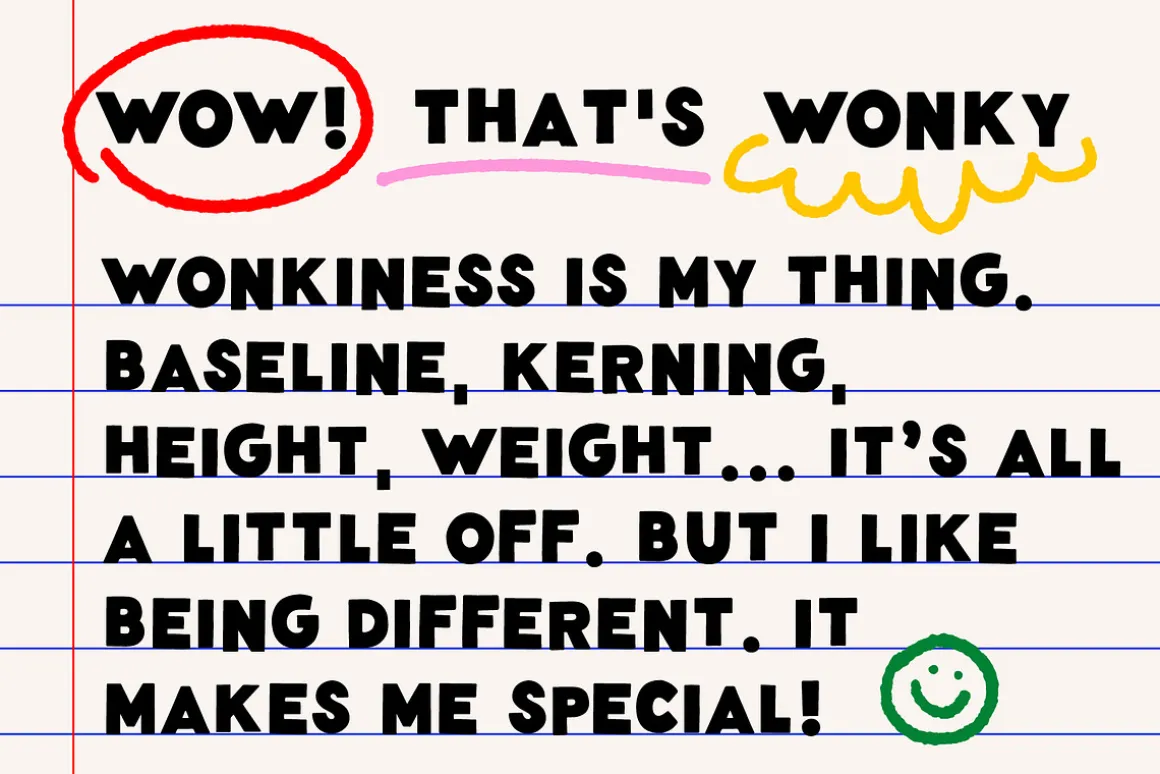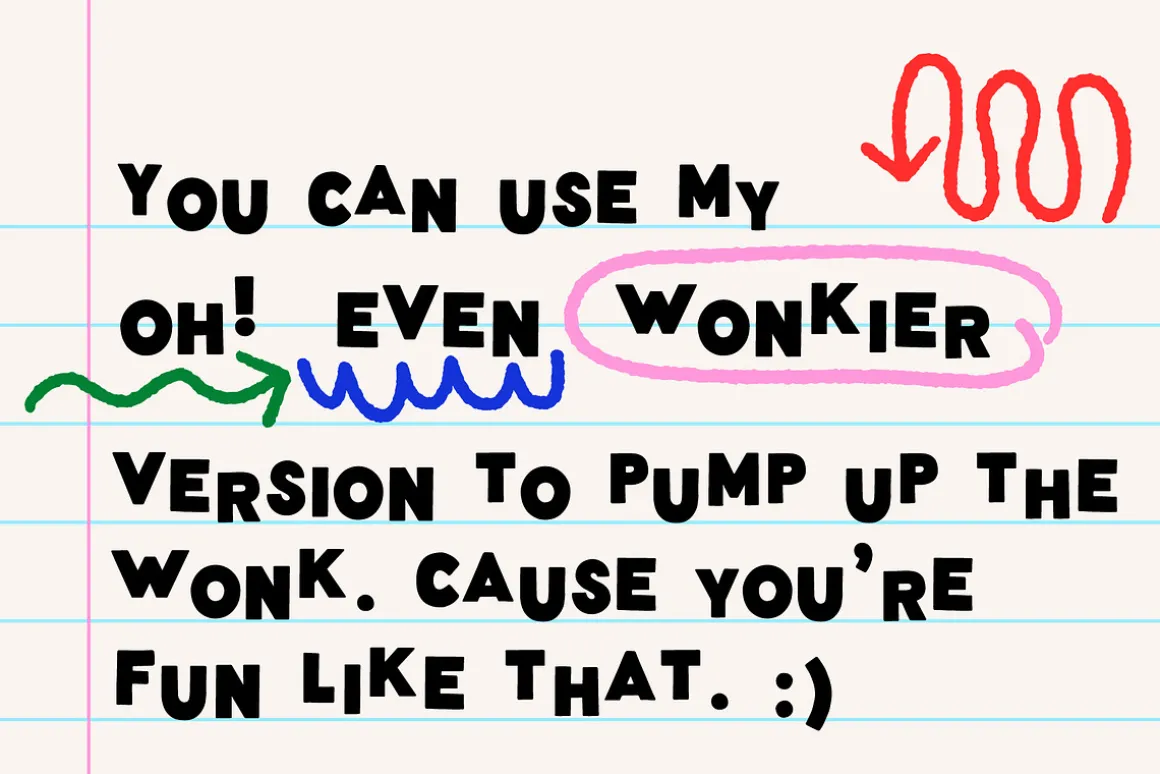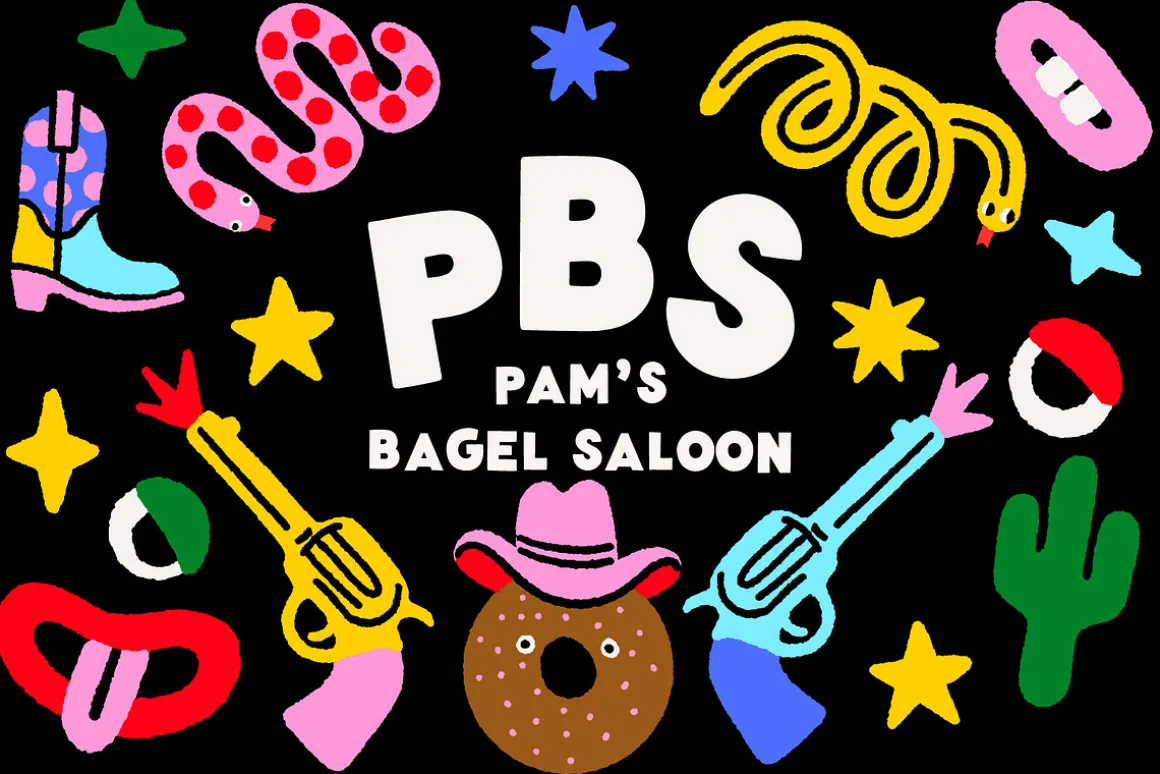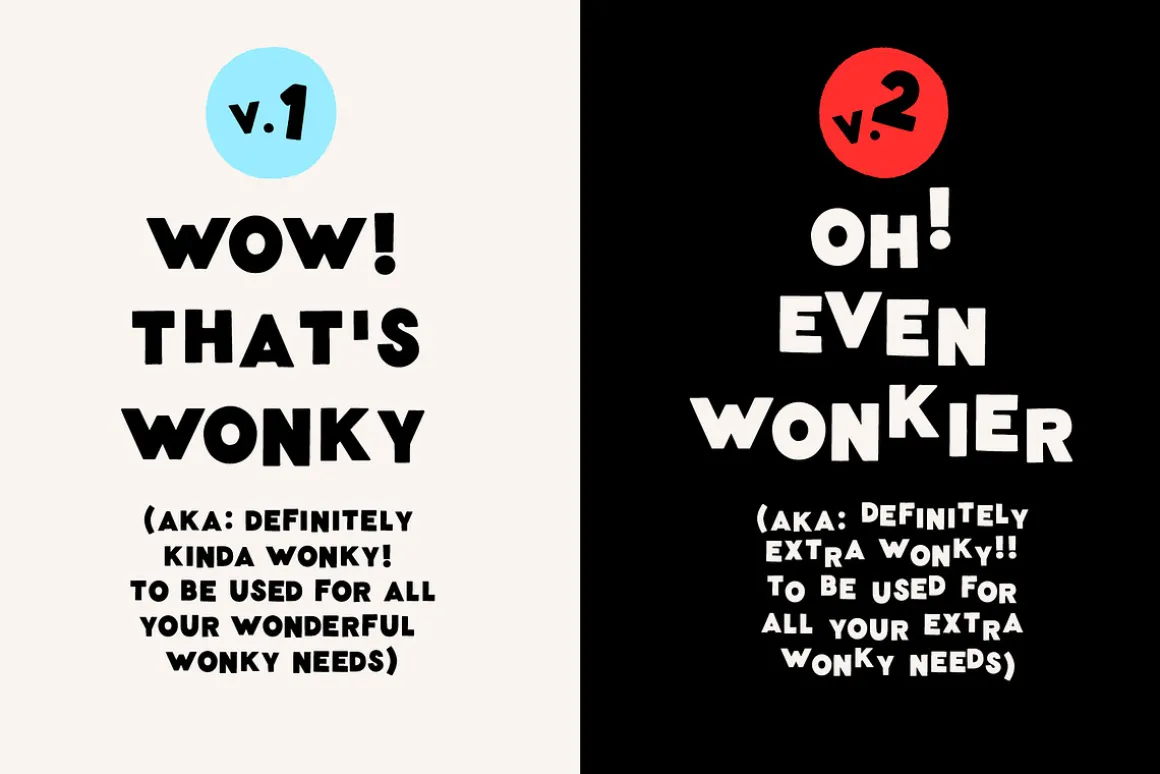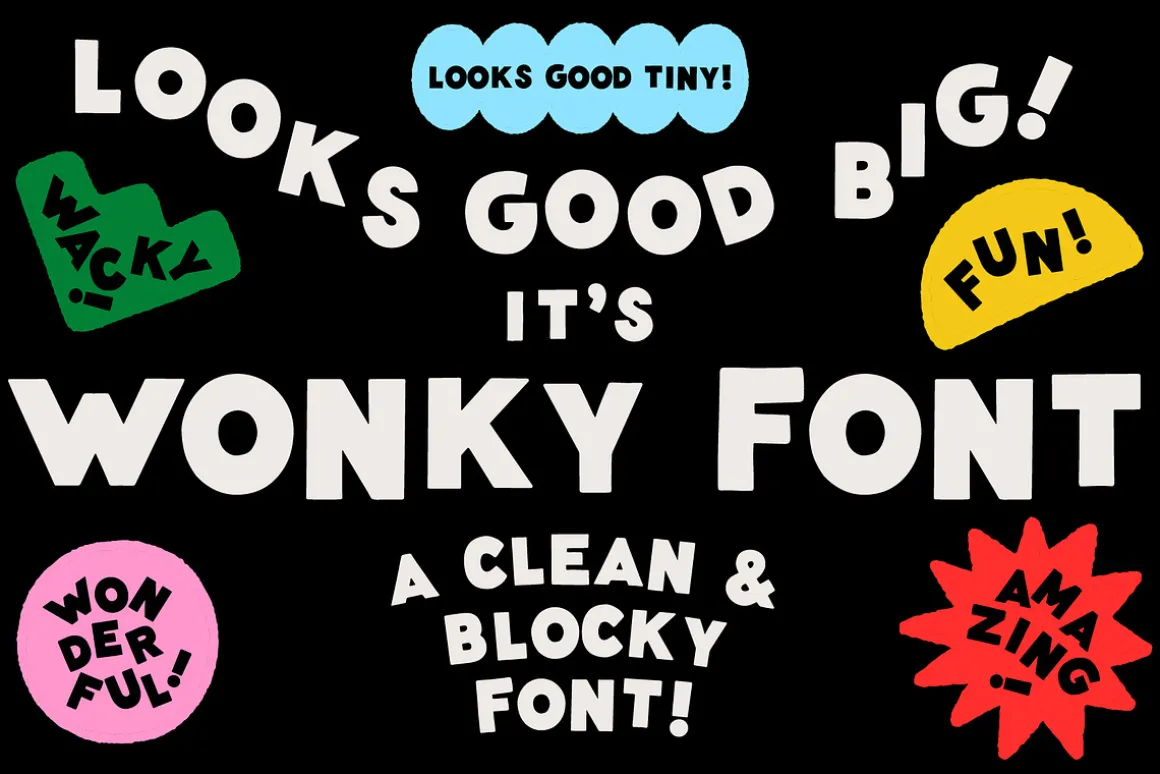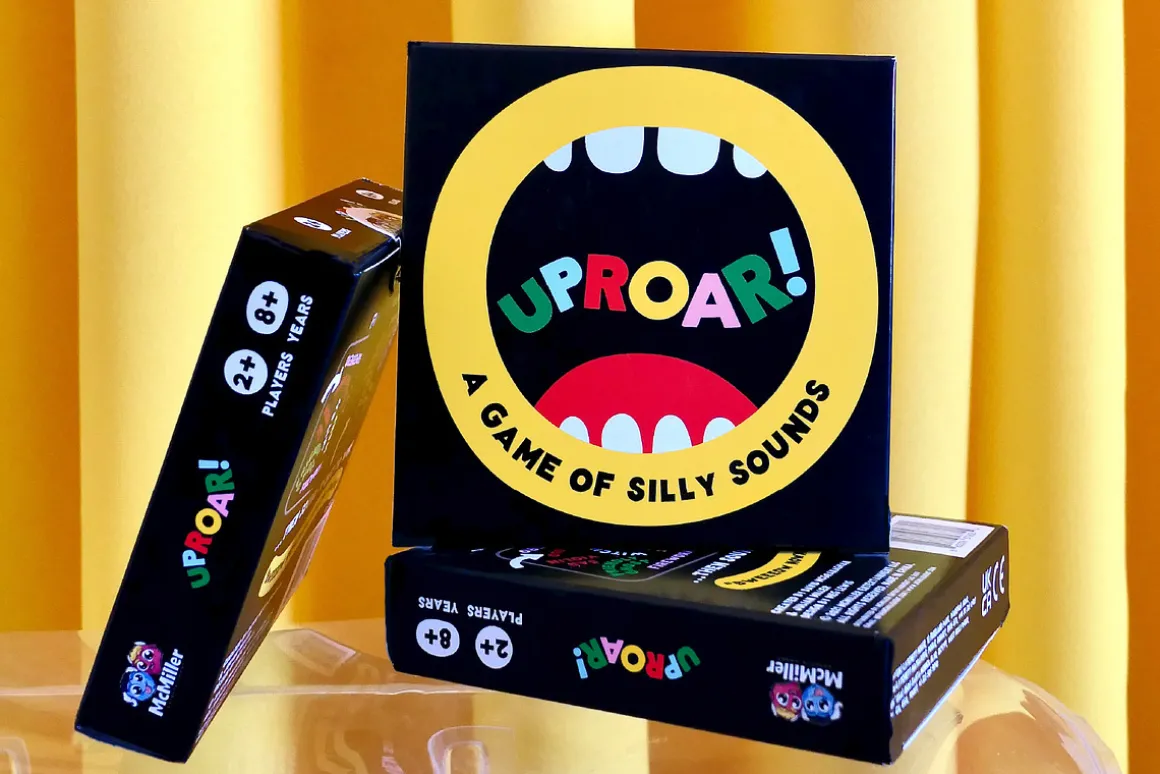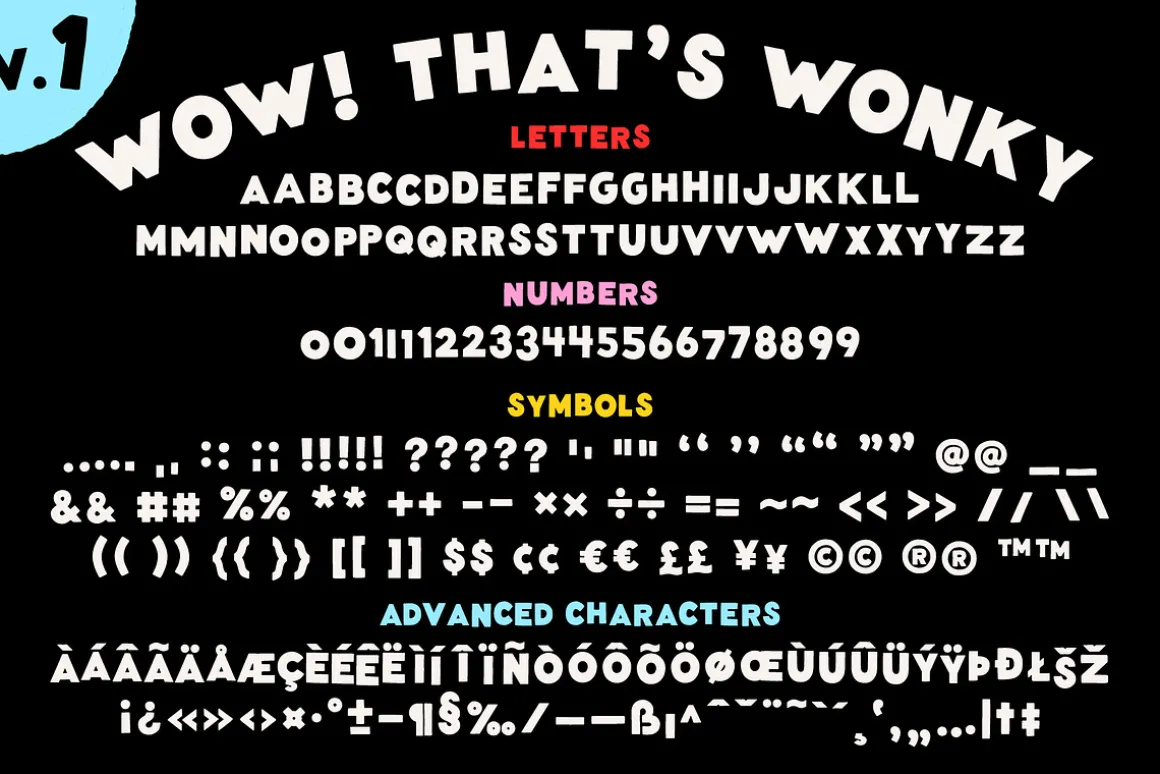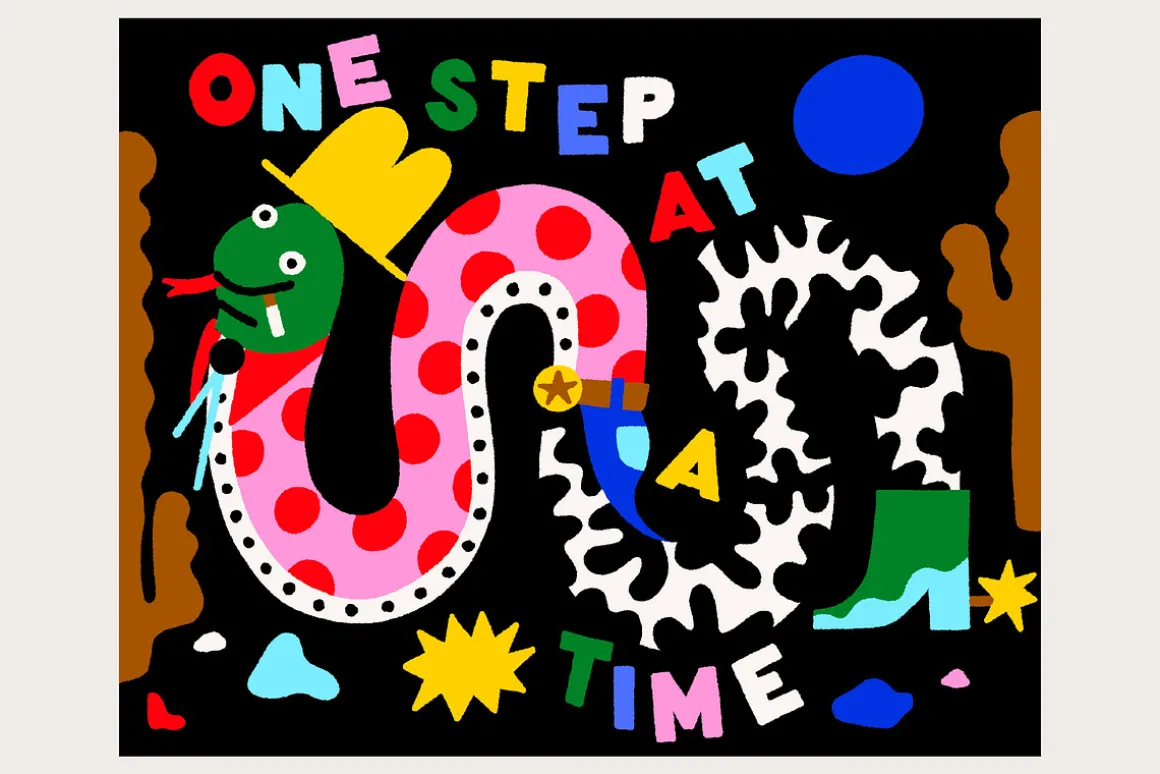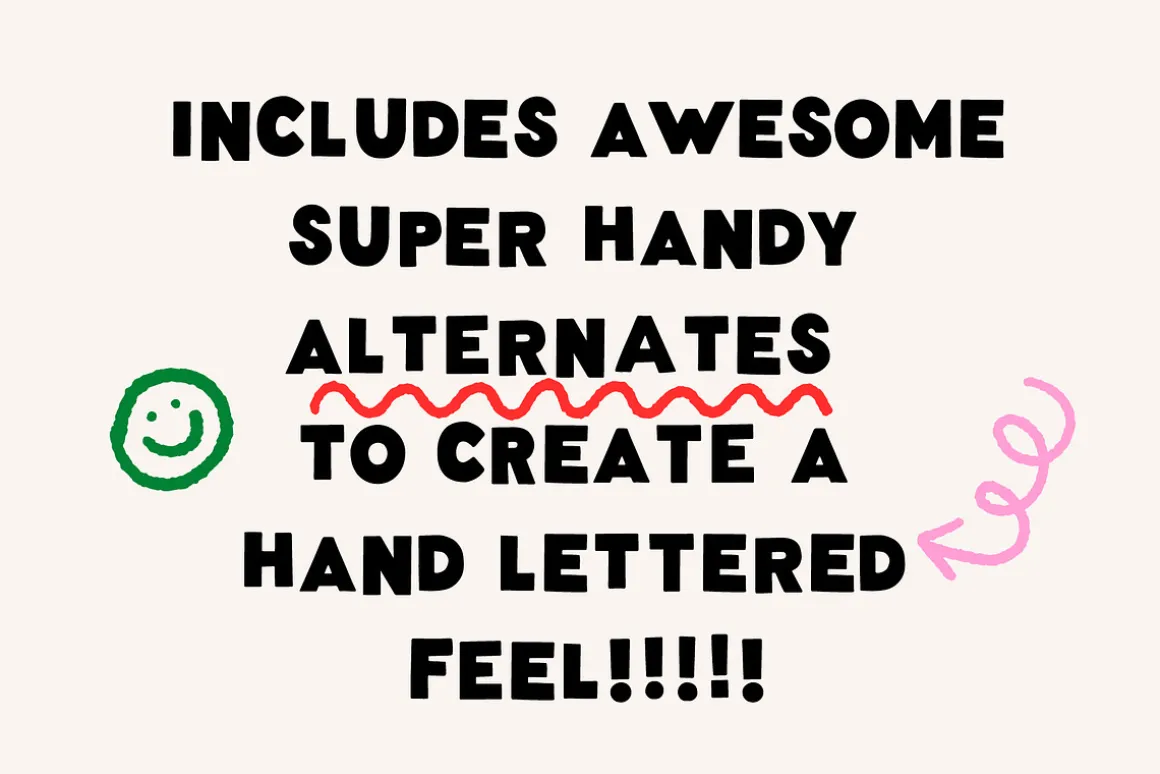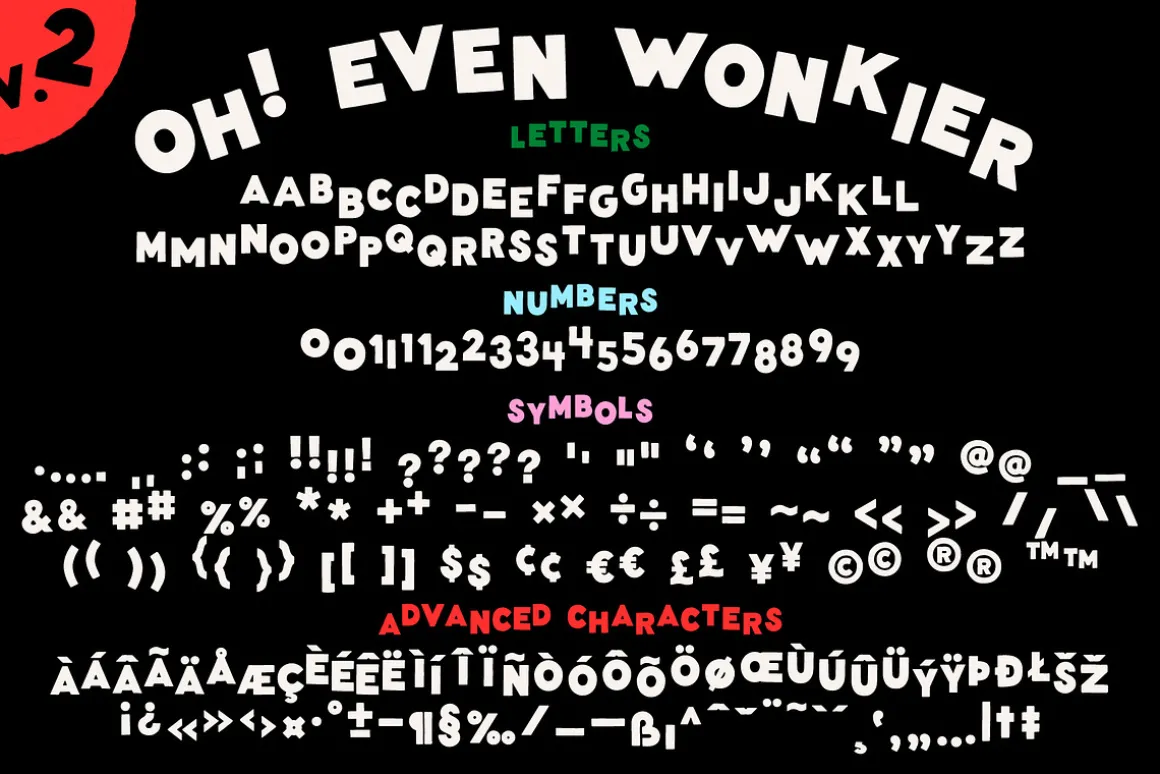
Wonky font is a magnificently multifunctional font family of two. Wonky font is all caps and has a clean, hand lettered feel. It’s nonsensical spacing and subtle differences allow for maximum wonk! Includes alternates to make sure that no character looks too repetitive (see: wonk). And! It comes with two styles: “Wow! That’s Wonky” and “Oh! Even Wonkier” depending on the level of wonk you’re looking for.
Features
- Letters!
- Numbers!
- Symbols!
- Punctuation!
- Advanced Characters!